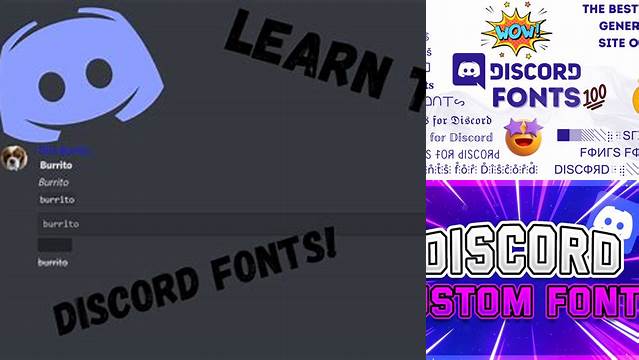
Custom Fonts On Discord: A Simple Guide
Discord is a super popular platform for communities and friends to hang out, and who wouldn't want to make their profile or server stand out? One cool way to do that is by using custom fonts. While Discord doesn't natively support custom fonts in the same way a word processor does, there are some nifty workarounds we can use to spice up our text. Let’s dive into how you can use custom fonts on Discord.
Understanding Discord's Text Formatting
Before we jump into adding custom fonts, it's essential to understand how Discord handles text formatting. Discord uses Markdown, a lightweight markup language, to format text. This allows users to create bold, italic, underline, and other text effects using simple symbols. However, Markdown doesn't support custom fonts directly.
Discord's reliance on Markdown means you can’t just upload a font file and select it from a dropdown menu. Instead, we have to get a little creative. The methods we'll explore involve using Unicode characters and external tools to generate stylized text that you can then copy and paste into Discord.
Method 1: Using Unicode Text Generators
One of the easiest ways to use custom fonts on Discord is by using Unicode text generators. These tools allow you to type in your desired text, and they convert it into various stylized Unicode characters. Since Discord supports Unicode, you can copy and paste these stylized characters into your messages and profile.
Finding a Unicode Text Generator
There are many Unicode text generators available online. A quick search for "Discord font generator" or "Unicode text generator" will give you a plethora of options. Some popular choices include:
These websites typically offer a range of font styles, from bold italics to fancy scripts and gothic fonts. Simply type your text into the input box, and the generator will display the converted text in various styles.
Copying and Pasting into Discord
Once you've found a style you like, copy the generated text from the Unicode text generator and paste it into your Discord message, profile, or server description. The stylized text should now appear as intended. Keep in mind that while this method works, the "fonts" are actually Unicode characters, so they might not look exactly like traditional fonts. Also, the appearance can vary slightly depending on the platform and device viewing the text.
Limitations of Unicode Fonts
While Unicode fonts are a simple solution, they do have some limitations:
- Limited Styles: The variety of styles is limited to what the generators offer.
- Character Support: Not all characters and symbols may be available in every style.
- Readability: Some stylized Unicode characters can be difficult to read, especially in smaller sizes.
- Accessibility: These fonts might not be screen reader friendly, posing challenges for users with visual impairments.
Despite these limitations, using Unicode text generators is a quick and easy way to add some flair to your Discord text.
Method 2: Using Discord Font Bots
Another way to use custom fonts on Discord is by adding a Discord font bot to your server. These bots can generate stylized text directly within Discord using commands. This method can be more convenient than using external websites, as you don't have to switch between applications.
Finding a Discord Font Bot
To find a Discord font bot, you can search on websites like Discord Bot List or Top.gg. Look for bots that offer text formatting or font generation features. Some popular bots that offer these capabilities include:
- MEE6: A multipurpose bot that also provides font commands.
- TypicalBot: Offers a variety of text formatting options.
- Font Generator Bot: A bot specifically designed for generating stylish fonts.
Before adding any bot to your server, make sure to check its reviews and permissions to ensure it is safe and reliable.
Adding and Configuring the Bot
Once you've found a bot, add it to your server by clicking the "Invite" or "Add to Discord" button on its listing page. You'll need to have the "Manage Server" permission to add bots to your server. After the bot is added, follow the bot's instructions to configure it. This usually involves setting up permissions and learning the bot's commands.
Using Font Commands
To use the font commands, type the bot's command prefix followed by the font command and your text. For example, if the bot's prefix is ! and the font command is font, you might type !font bold Hello Discord! to generate bold text. The exact commands and syntax will vary depending on the bot, so refer to the bot's documentation or help command for details.
Benefits of Using Font Bots
Using font bots offers several benefits:
- Convenience: Generate stylized text directly within Discord.
- Variety: Bots often offer a wide range of font styles and formatting options.
- Automation: Bots can automate text formatting tasks, saving you time and effort.
However, keep in mind that bots can sometimes be unreliable or go offline, so it's good to have alternative methods available.
Method 3: Creating Custom Images with Text
If you want even more control over your fonts and text styles, you can create custom images with text and then upload them to Discord. This method allows you to use any font you want and apply advanced formatting effects.
Choosing an Image Editor
To create custom images with text, you'll need an image editor. Some popular options include:
- Adobe Photoshop: A professional-grade image editor with a wide range of features.
- GIMP: A free and open-source image editor that is a great alternative to Photoshop.
- Canva: A user-friendly online image editor with pre-designed templates.
- Paint.NET: A simple and easy-to-use image editor for Windows.
Choose an image editor that you are comfortable with and that meets your needs.
Creating Your Image
Open your image editor and create a new image with the desired dimensions. Add a text layer and type in your text. Choose your desired font, size, color, and formatting options. You can also add other design elements, such as backgrounds, shapes, and images, to make your image more visually appealing.
Exporting and Uploading to Discord
Once you're happy with your image, export it in a suitable format, such as PNG or JPEG. Then, upload the image to Discord by attaching it to a message or using it as your profile picture or server banner.
Advantages of Custom Images
Using custom images for text offers several advantages:
- Full Control: You have complete control over the fonts, styles, and formatting.
- Unlimited Options: You can use any font you want and apply advanced effects.
- Visual Appeal: Images can be more visually appealing than plain text.
However, keep in mind that images can take up more space than text and may not be as accessible to users with visual impairments. Also, images are not searchable or selectable, so they may not be suitable for all purposes.
Additional Tips and Tricks
Here are some additional tips and tricks for using custom fonts on Discord:
- Use Emojis: Emojis can add visual interest and emotion to your text.
- Experiment with Formatting: Try combining different formatting options, such as bold italics and underline, to create unique effects.
- Keep it Readable: Make sure your text is easy to read, even with custom fonts.
- Be Consistent: Use custom fonts consistently to maintain a cohesive look and feel.
- Test on Different Devices: Check how your custom fonts look on different devices and platforms to ensure they display correctly.
While Discord doesn't natively support custom fonts, there are still plenty of ways to add some personality to your text. Whether you choose to use Unicode text generators, Discord font bots, or custom images, the key is to have fun and experiment with different styles. So go ahead and get creative with your Discord text and make your profile or server stand out from the crowd!